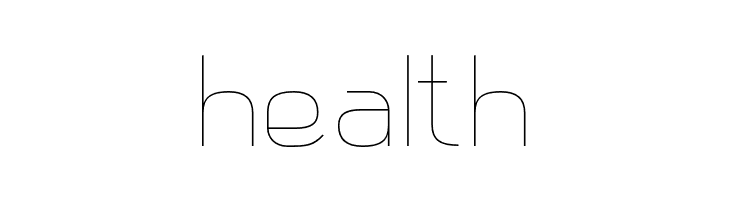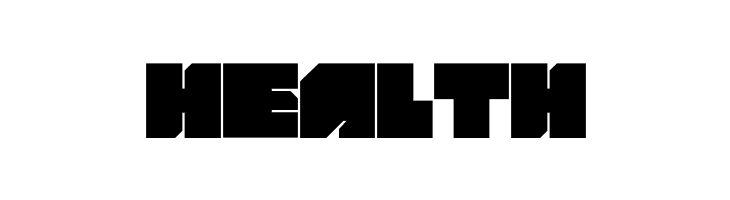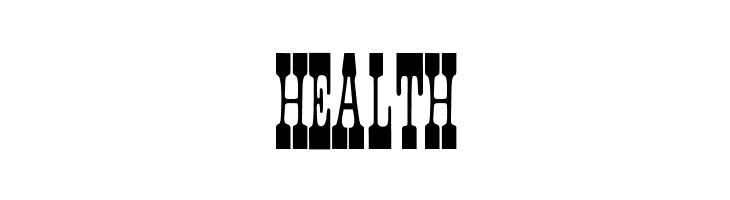
A bold, modern sans-serif font with clean lines and geometric shapes.
A modern, elegant font with a clean and sophisticated design.
A modern, geometric sans-serif font with uniform stroke widths.
A sleek, modern font with thin, geometric lines and a minimalistic design.
A playful, hand-drawn font with dynamic strokes and artistic flair.
A bold, geometric font with chamfered edges and a modern industrial style.
A bold, geometric font with sharp angles and a modern, edgy style.
An elegant serif font with high contrast and refined details.
A bold, high-contrast serif font with a Western vintage style.
A tall, narrow font with a modern, vertical emphasis.